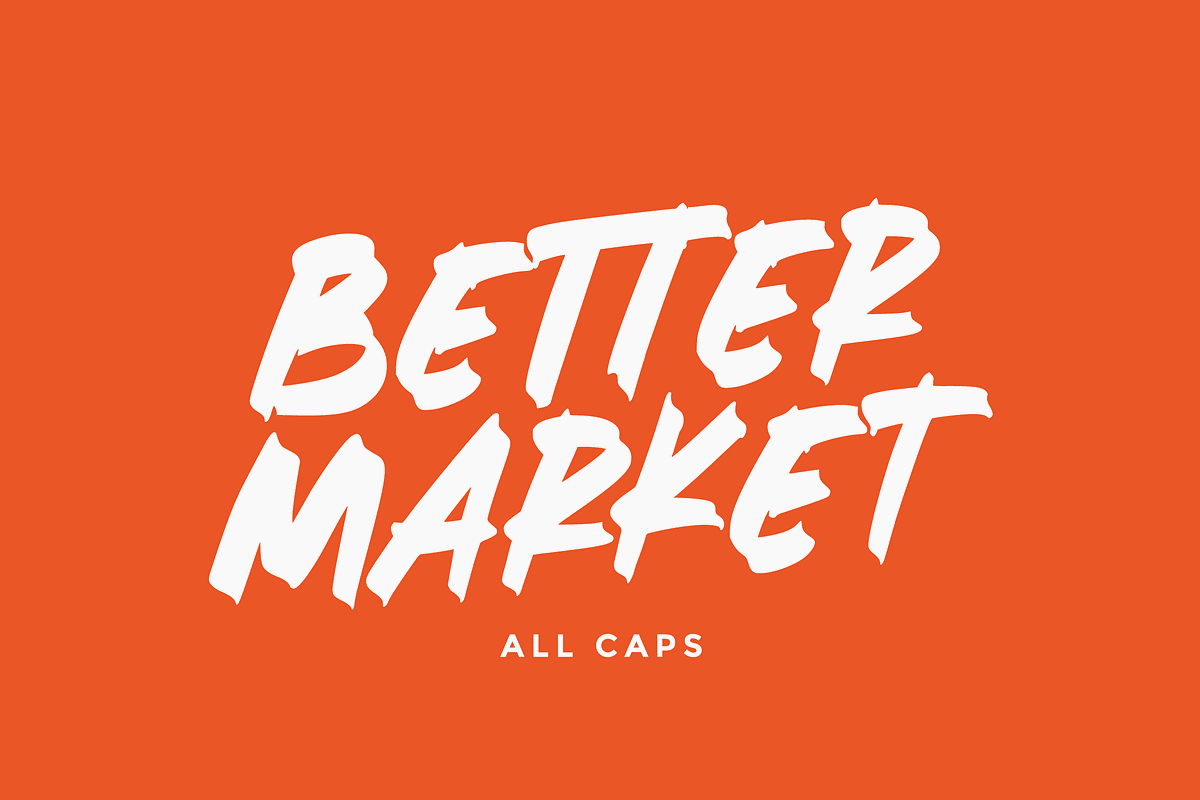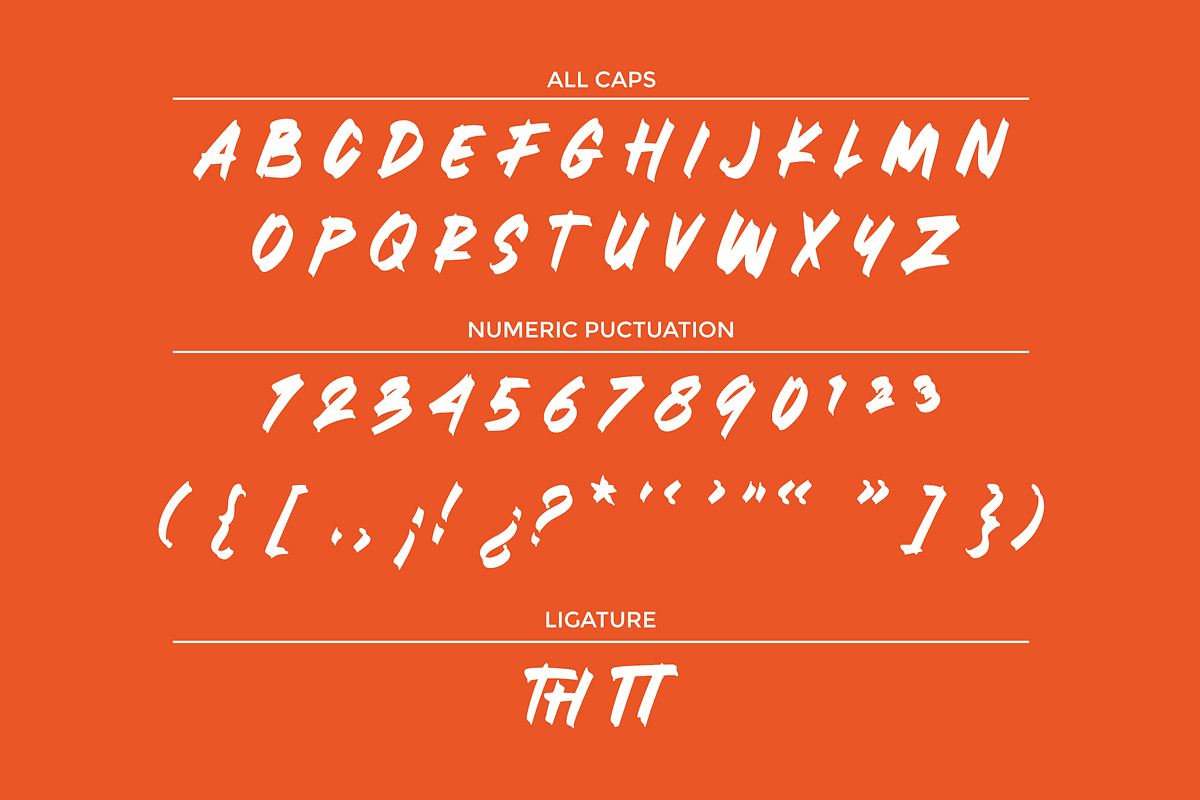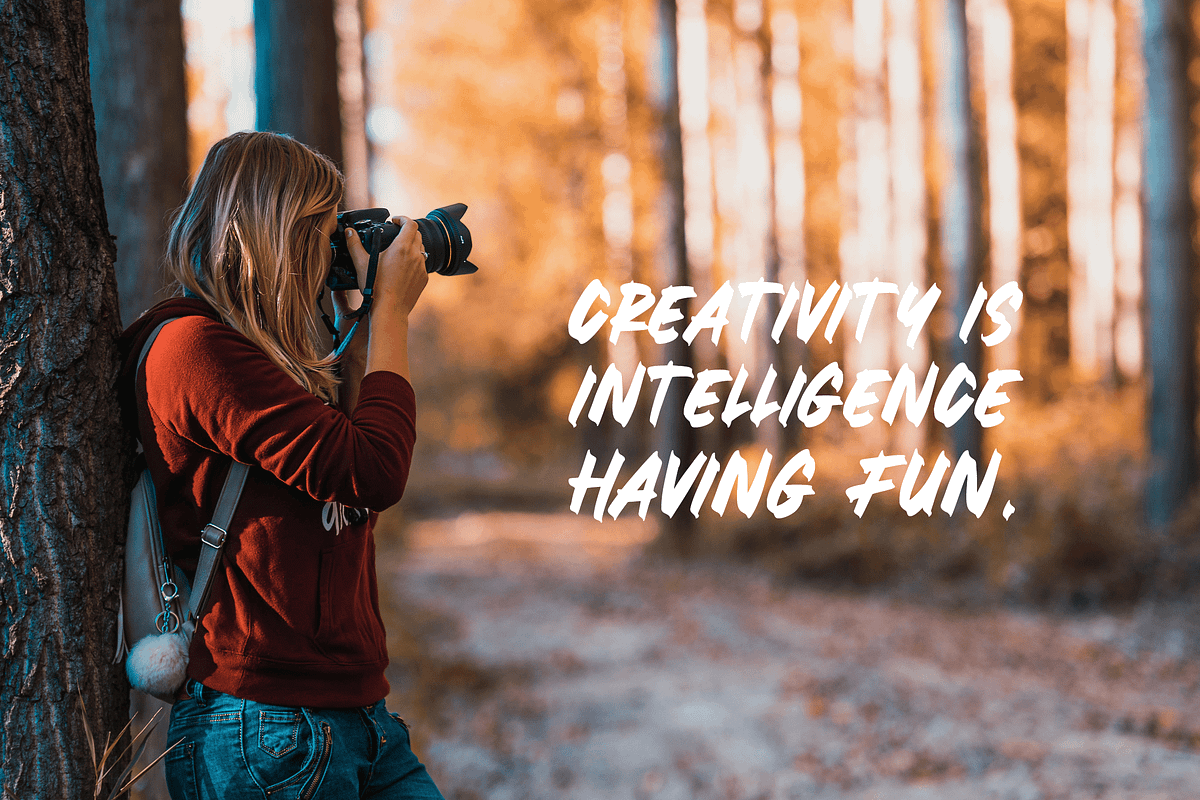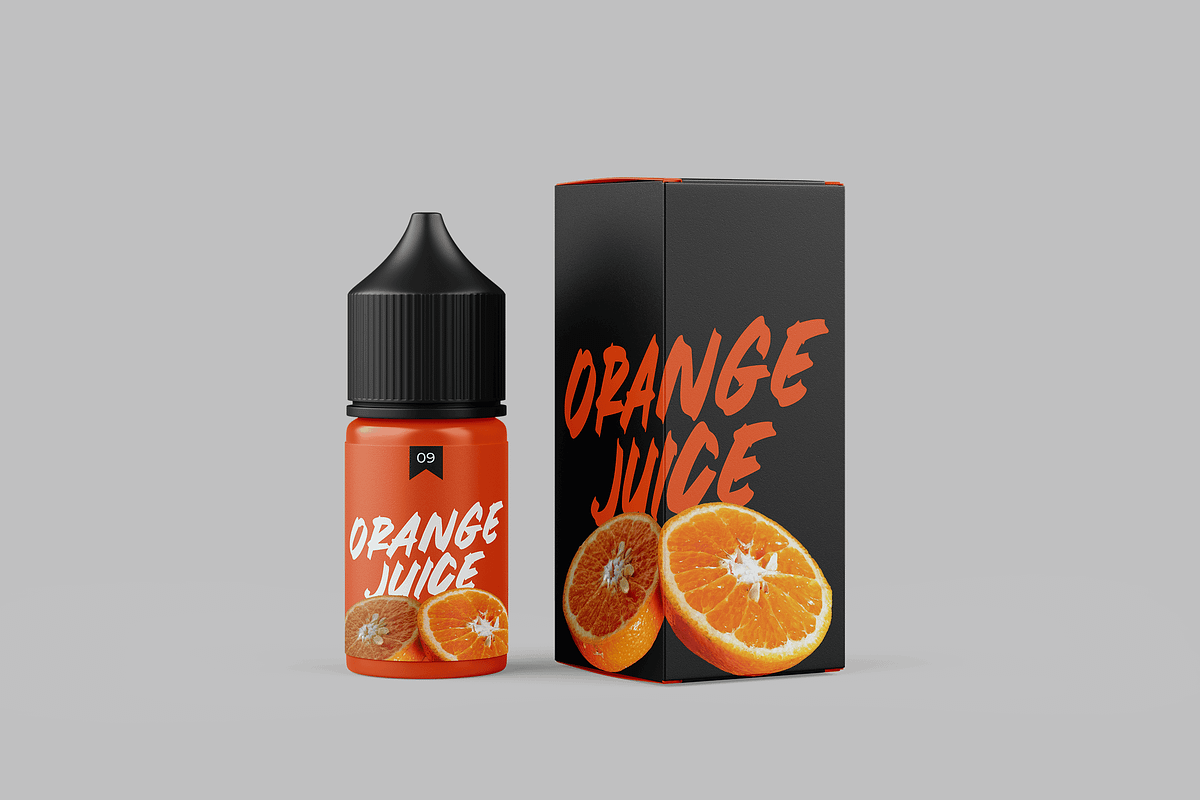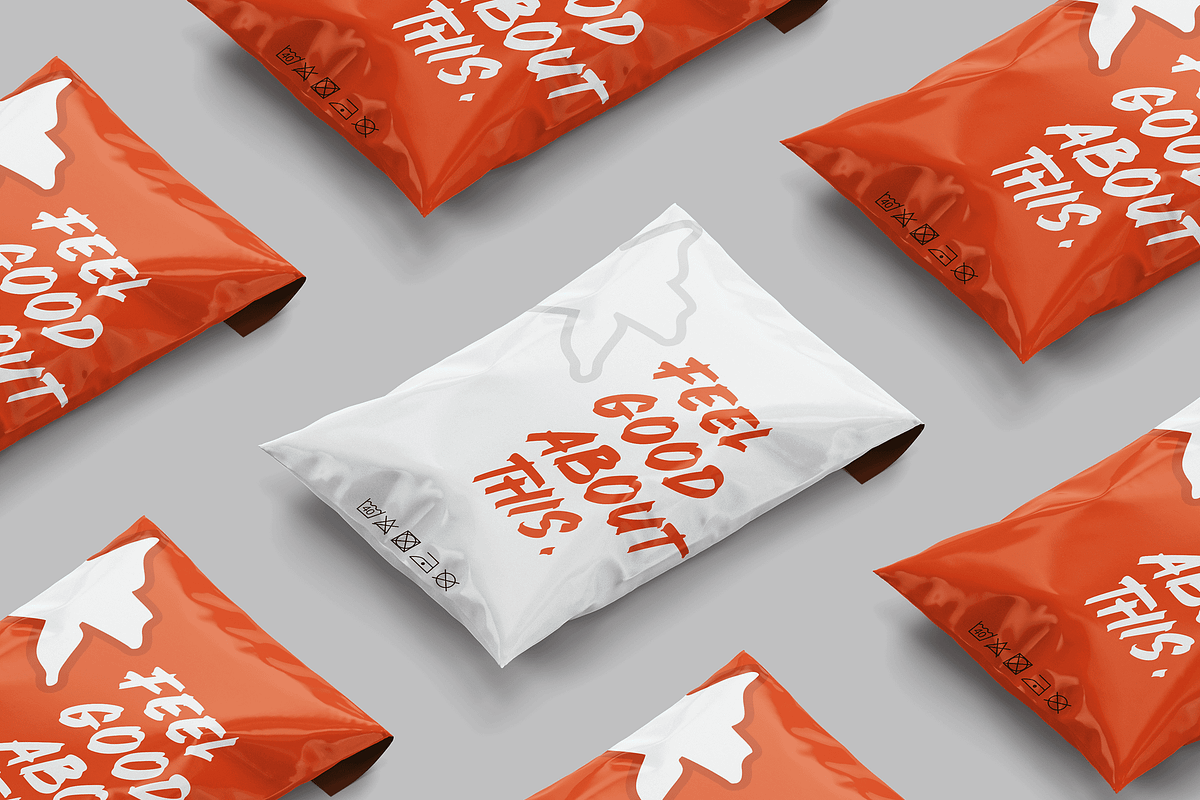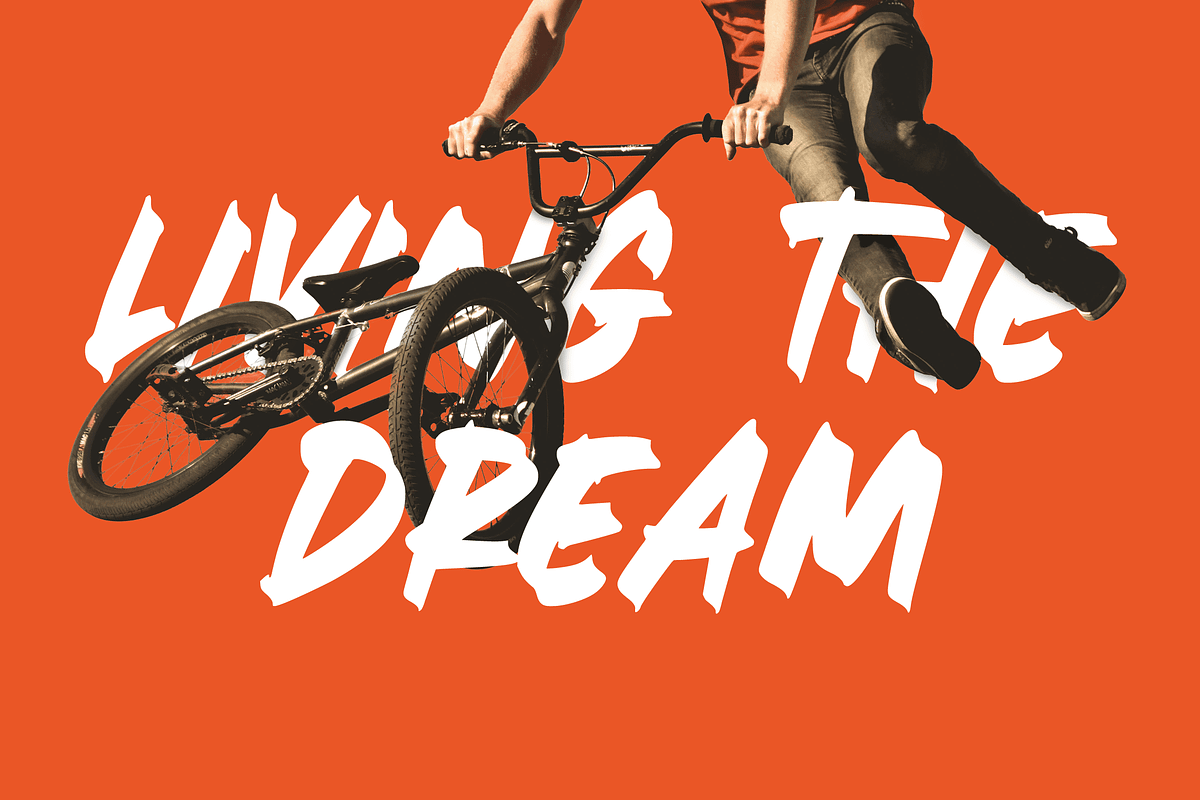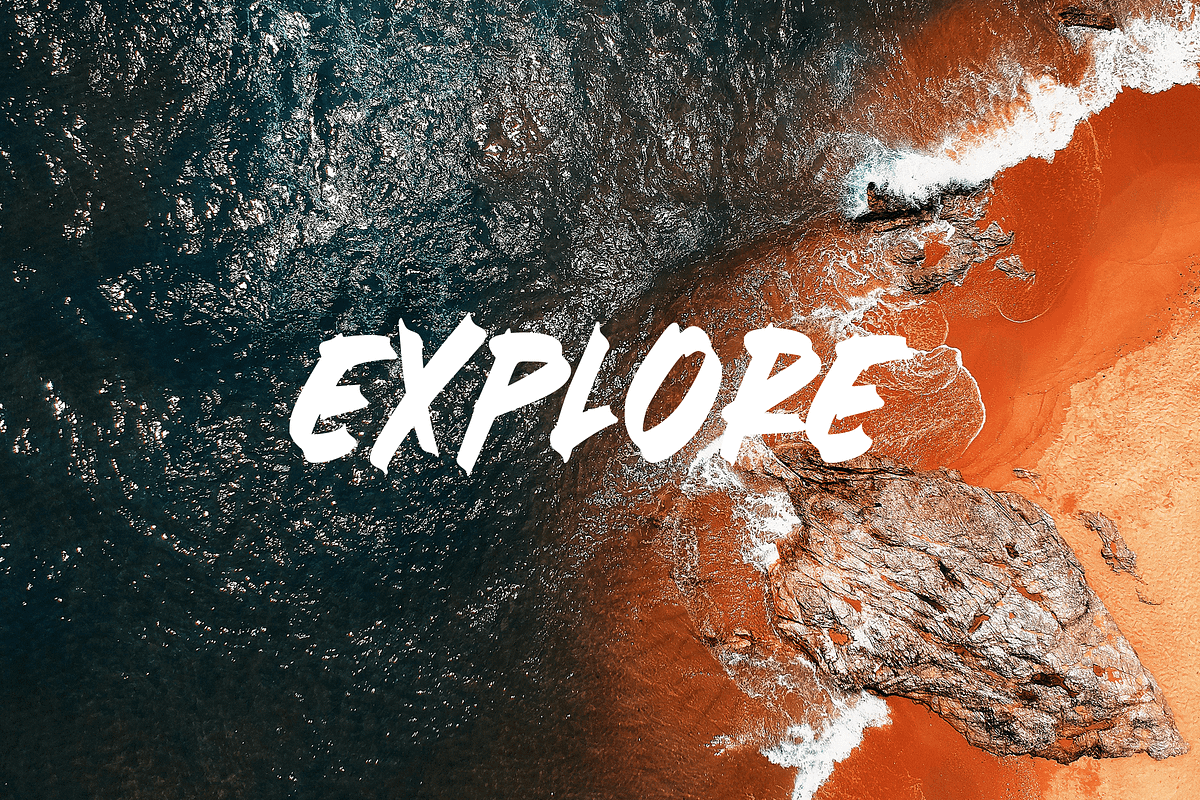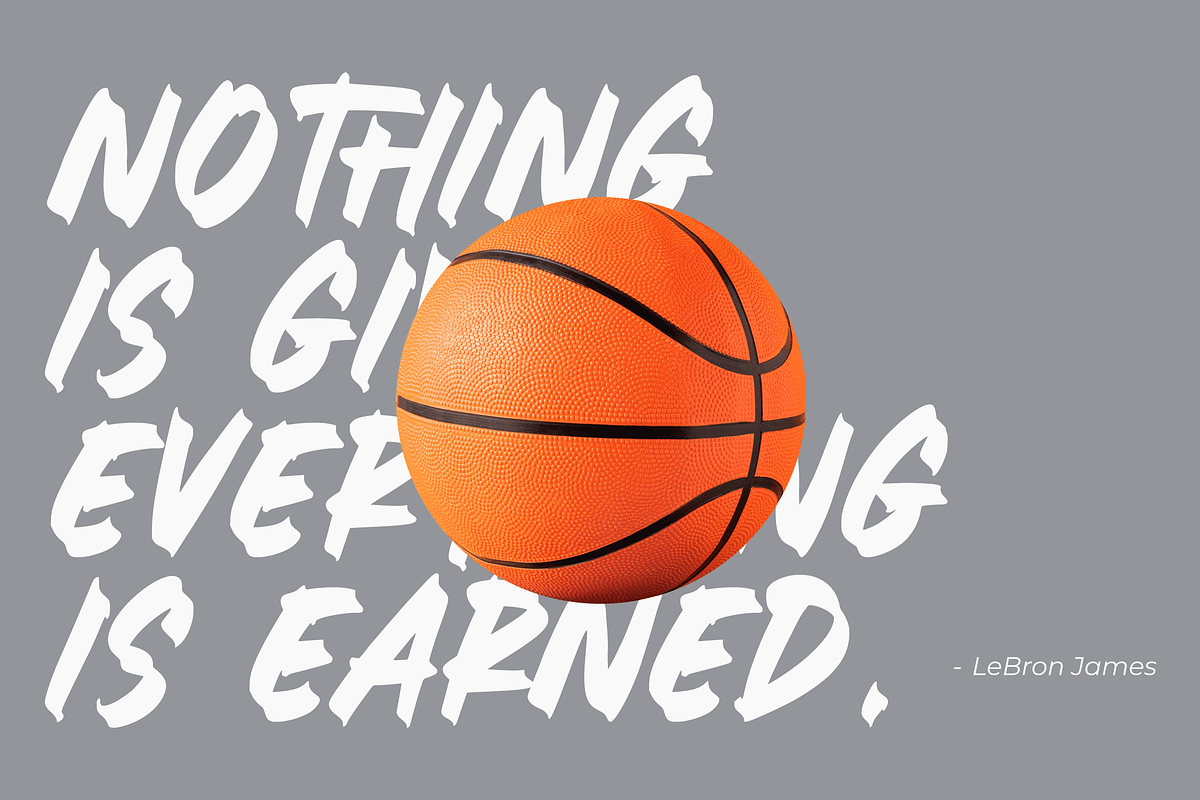
Better Market
For a bold, impactful feel, textureless brush fonts are a great choice. They bring a touch of handcrafted art to any project, combining the classic elegance of matte black text with the creative flair of brushwork. Ideal for everything from artistic branding to expressive web design, this font is versatile and striking.